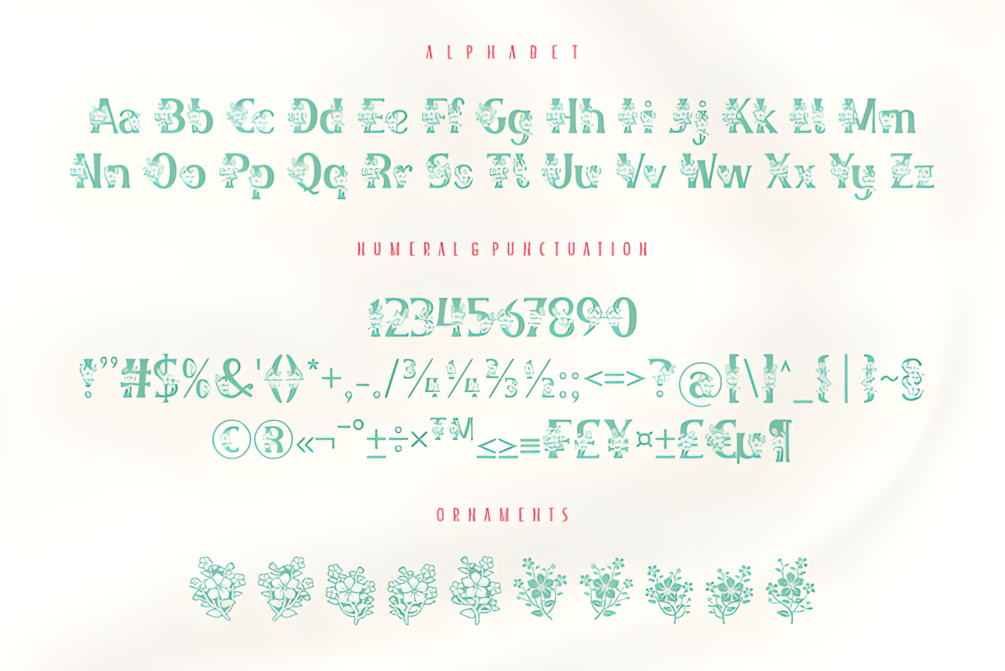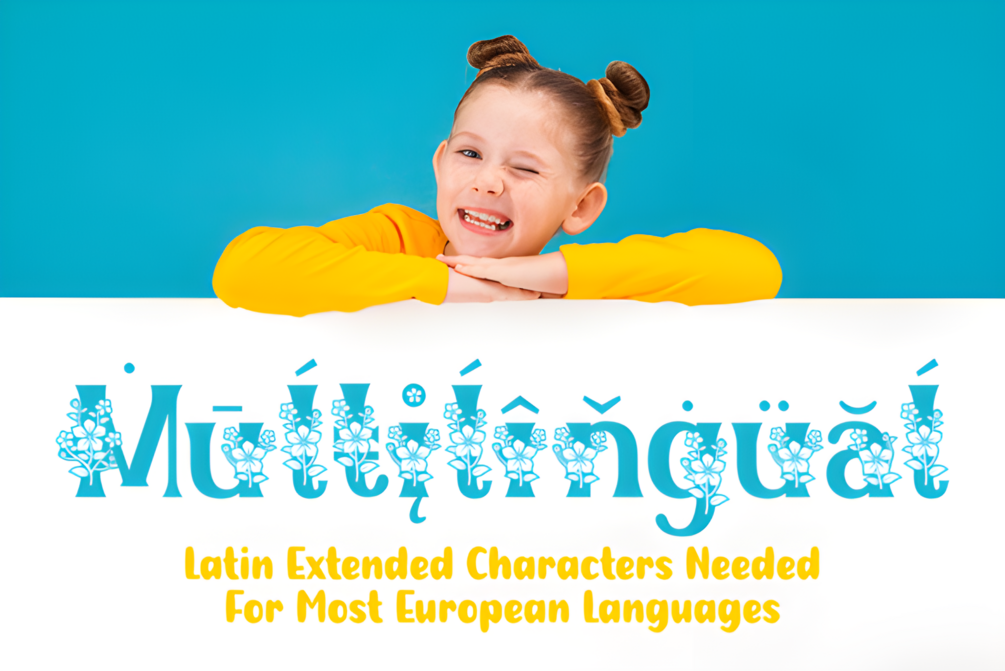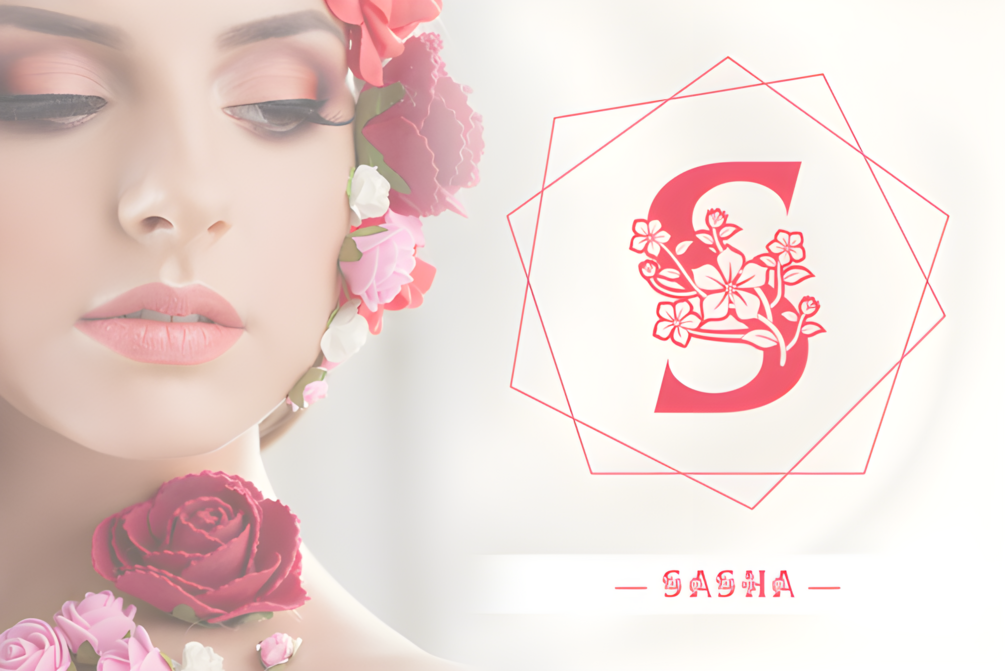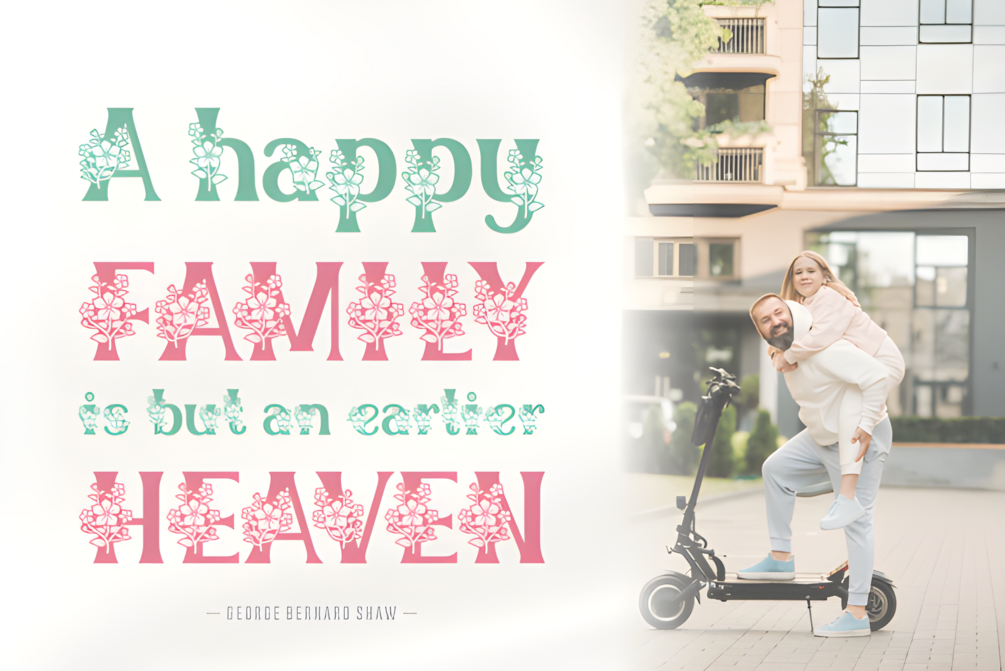
Mona Flower Font
Introducing "Mona Flower," a sweet and delicate decorative font designed to infuse romance and elegance into your projects.
Perfect for love letters, wedding invitations, and cherished design ideas, this enchanting font will captivate your audience and elevate your creations.
Experience the magic of "Mona Flower" and watch your designs blossom into breathtaking works of art.
Introducing "Mona Flower," a sweet and delicate decorative font perfect for love letters, wedding invitations, and more. This enchanting font will captivate your audience and elevate your designs. Add "Mona Flower" to your creative projects and watch them blossom into breathtaking works of art!